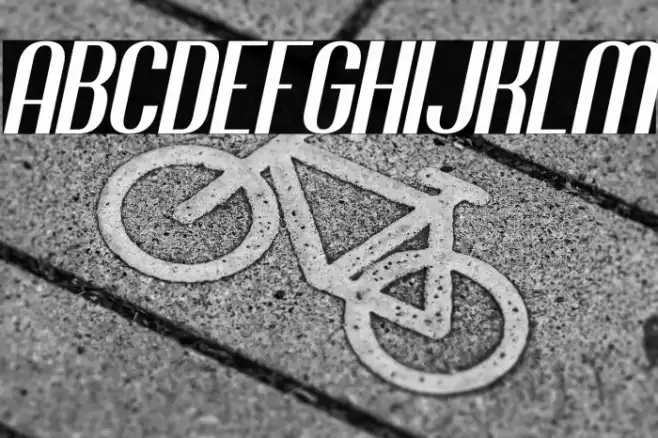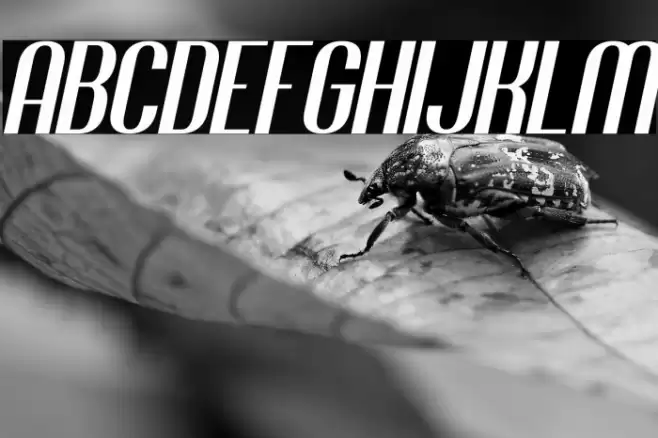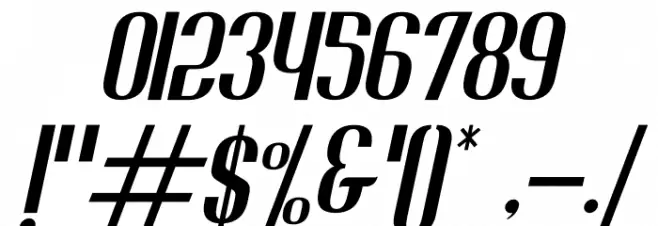
Jacob and son Italic Font
Jacob and son Italic Description
This font features a sleek, italicized design with a modern flair. The characters are elongated and slightly condensed, giving a sophisticated and dynamic appearance. The strokes are consistent in thickness, providing a medium contrast that enhances readability while maintaining an elegant style. The uppercase letters are bold and commanding, while the lowercase letters retain a smooth and flowing form. The numerals are clear and distinct, matching the overall aesthetic of the alphabet. Special characters are designed with the same attention to detail, ensuring uniformity across all glyphs.
A modern, italicized font with medium contrast and a sleek, dynamic style from Uncategorized fonts.